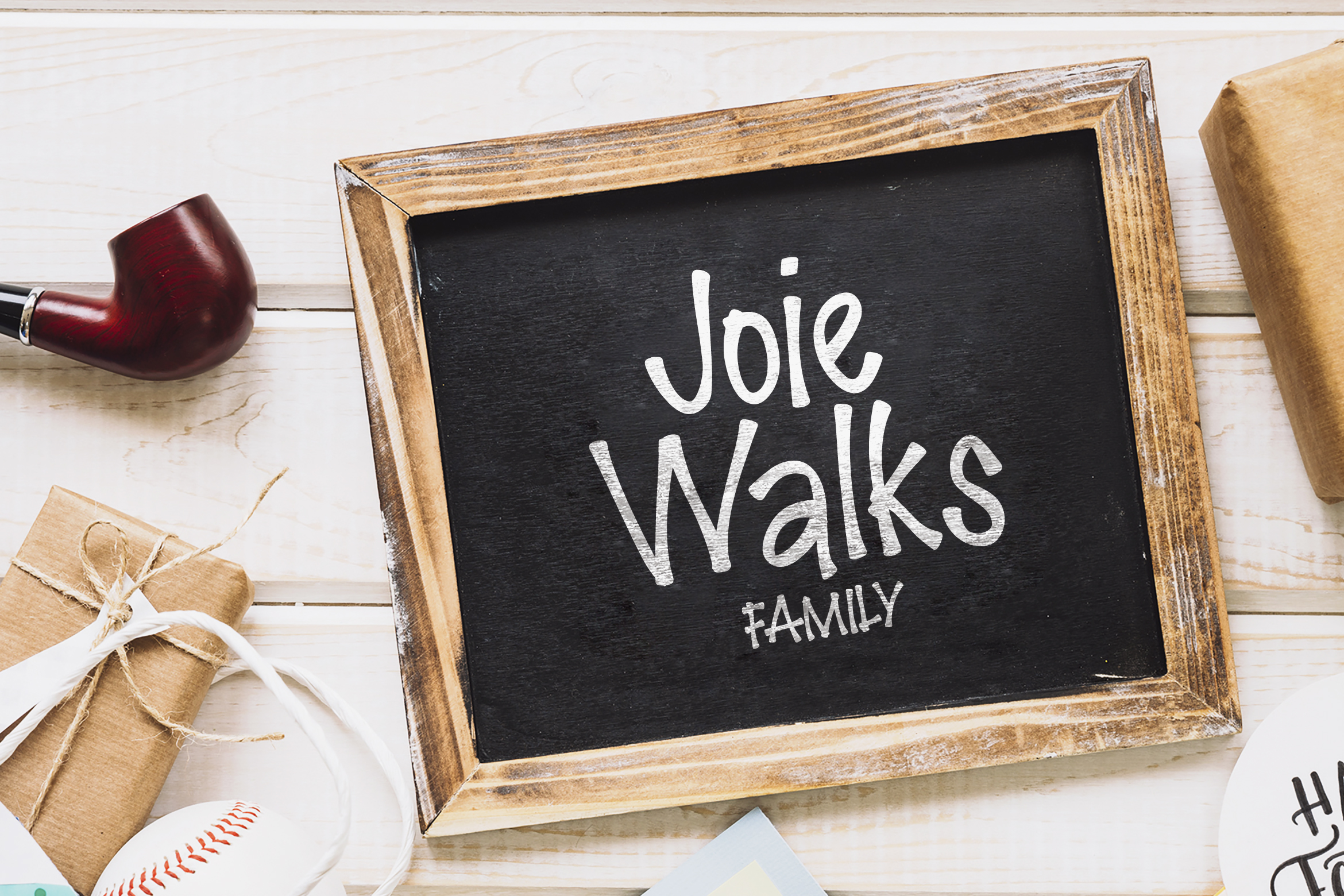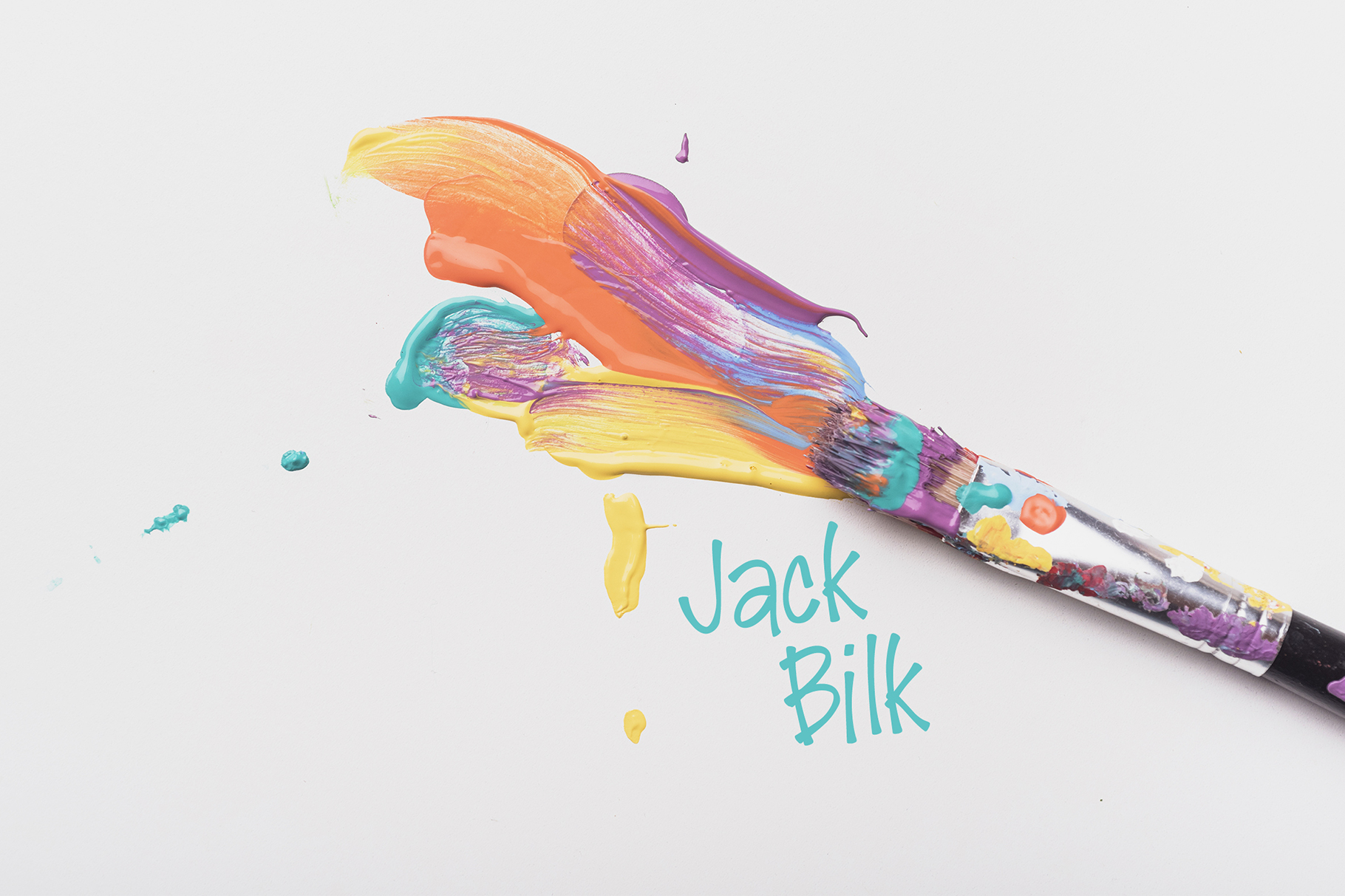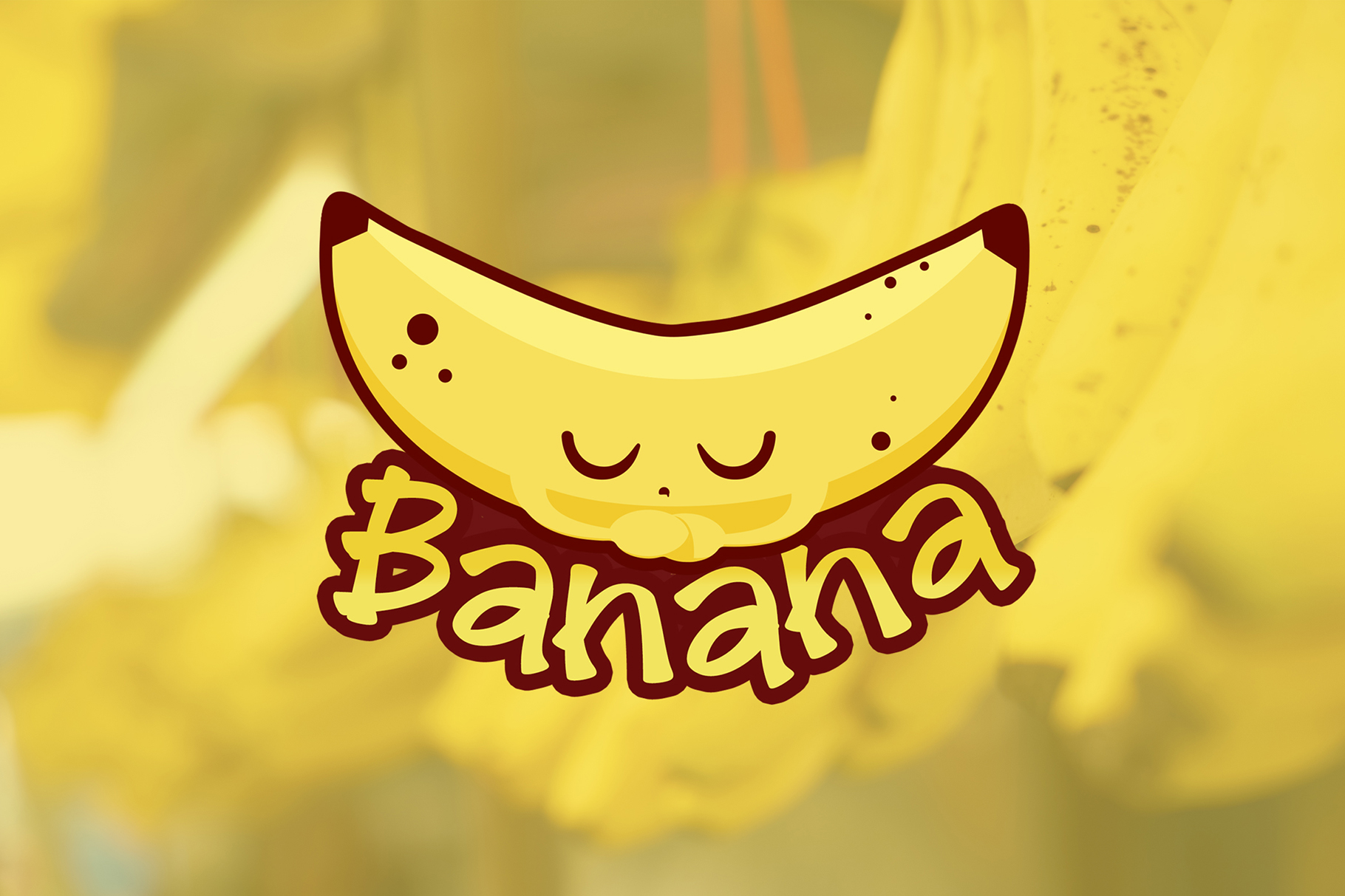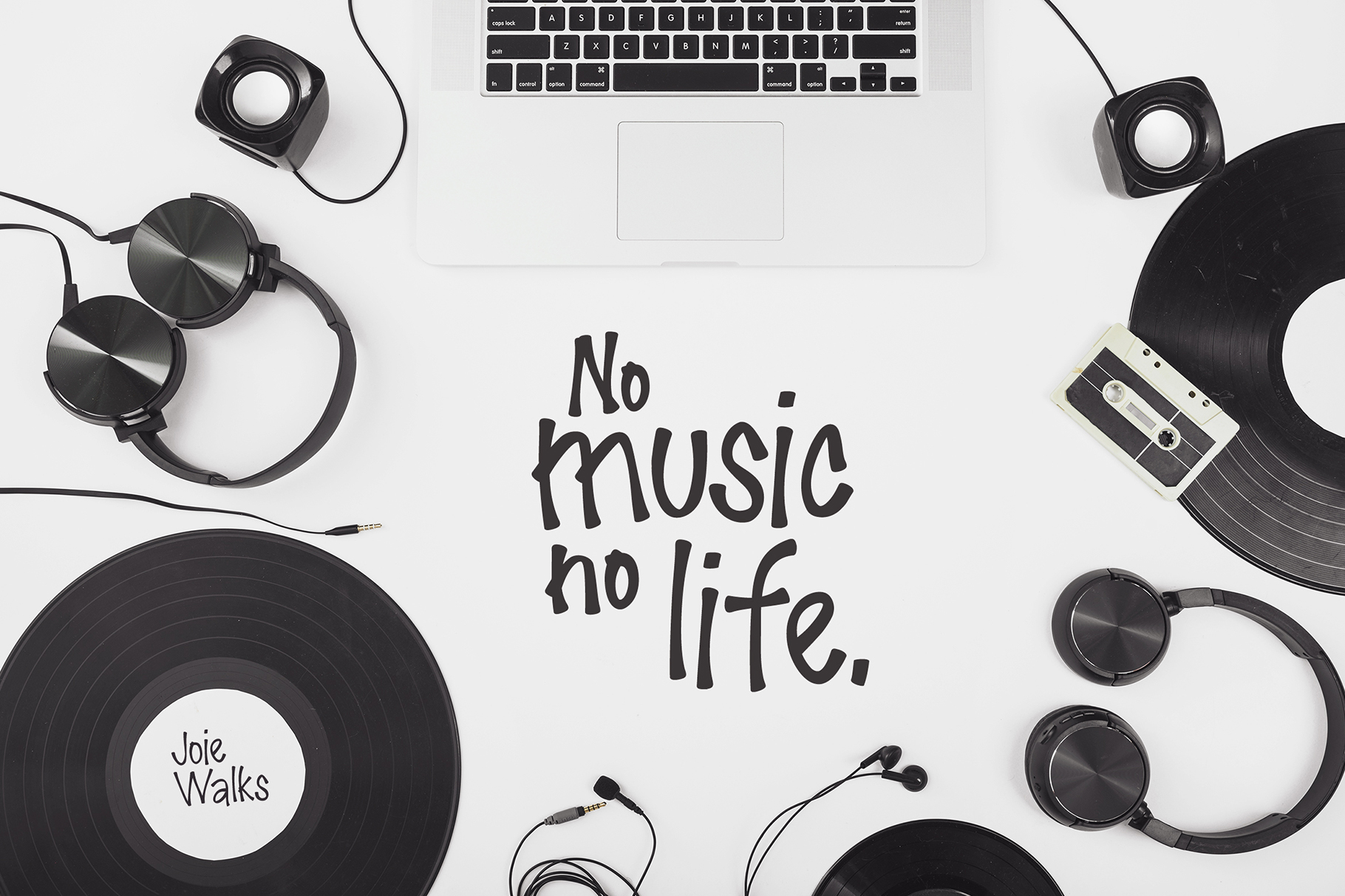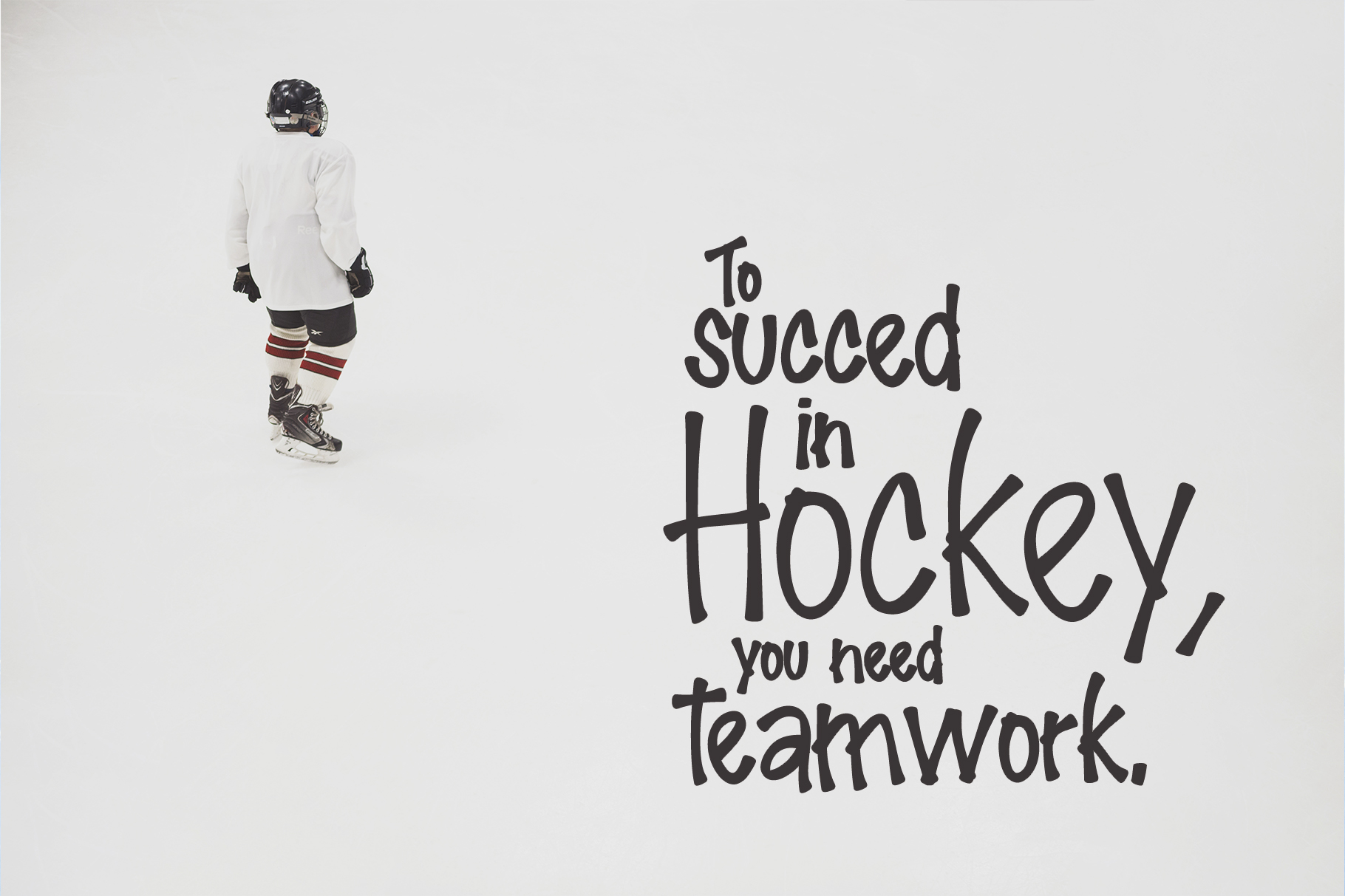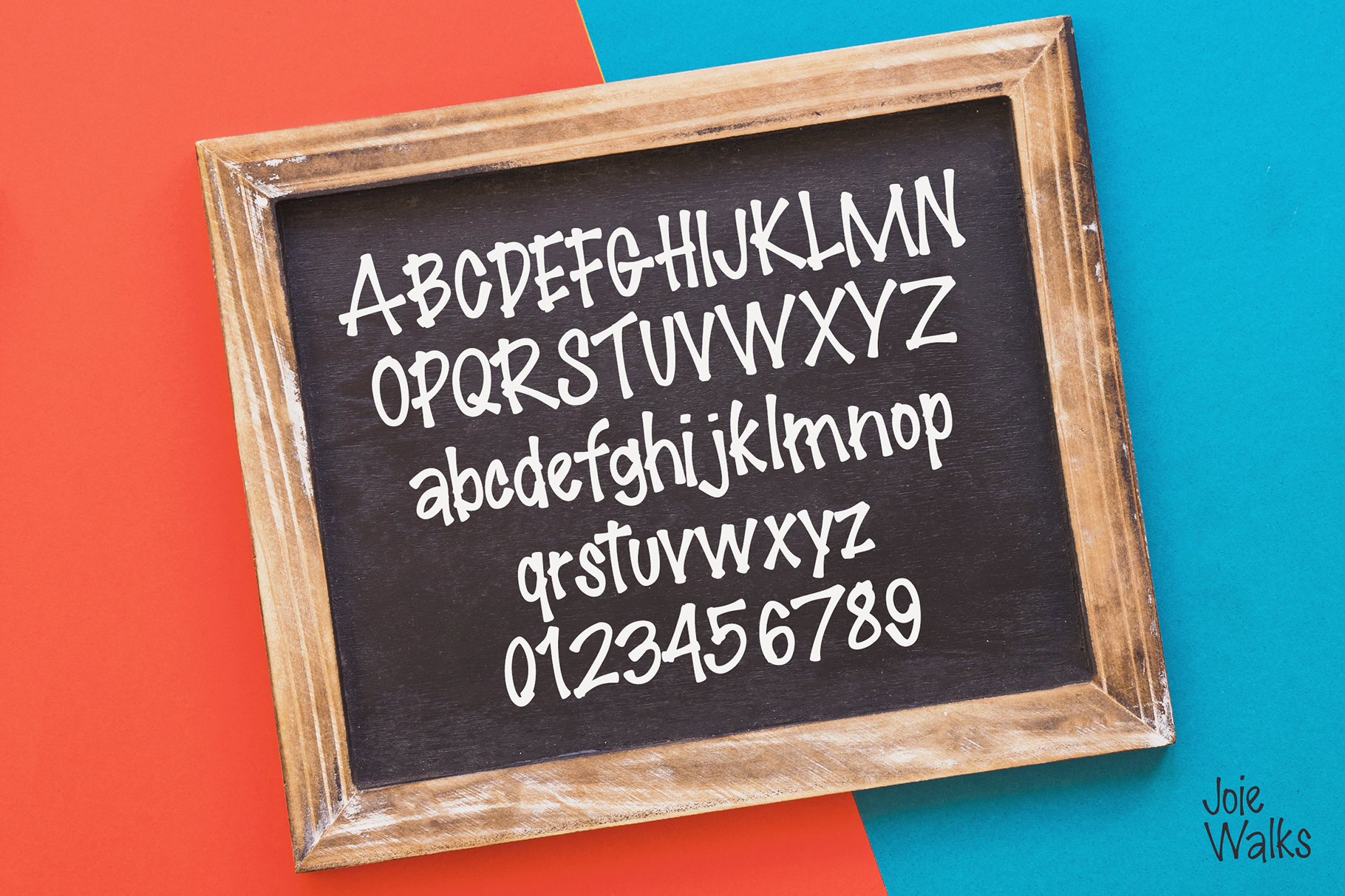
Joie Walks family is a handmade marker font. Perfect to give a unique appearance to your designs. All punctuations, extensions, lowercase and uppercase, numbers and webfont.
Joie Walks